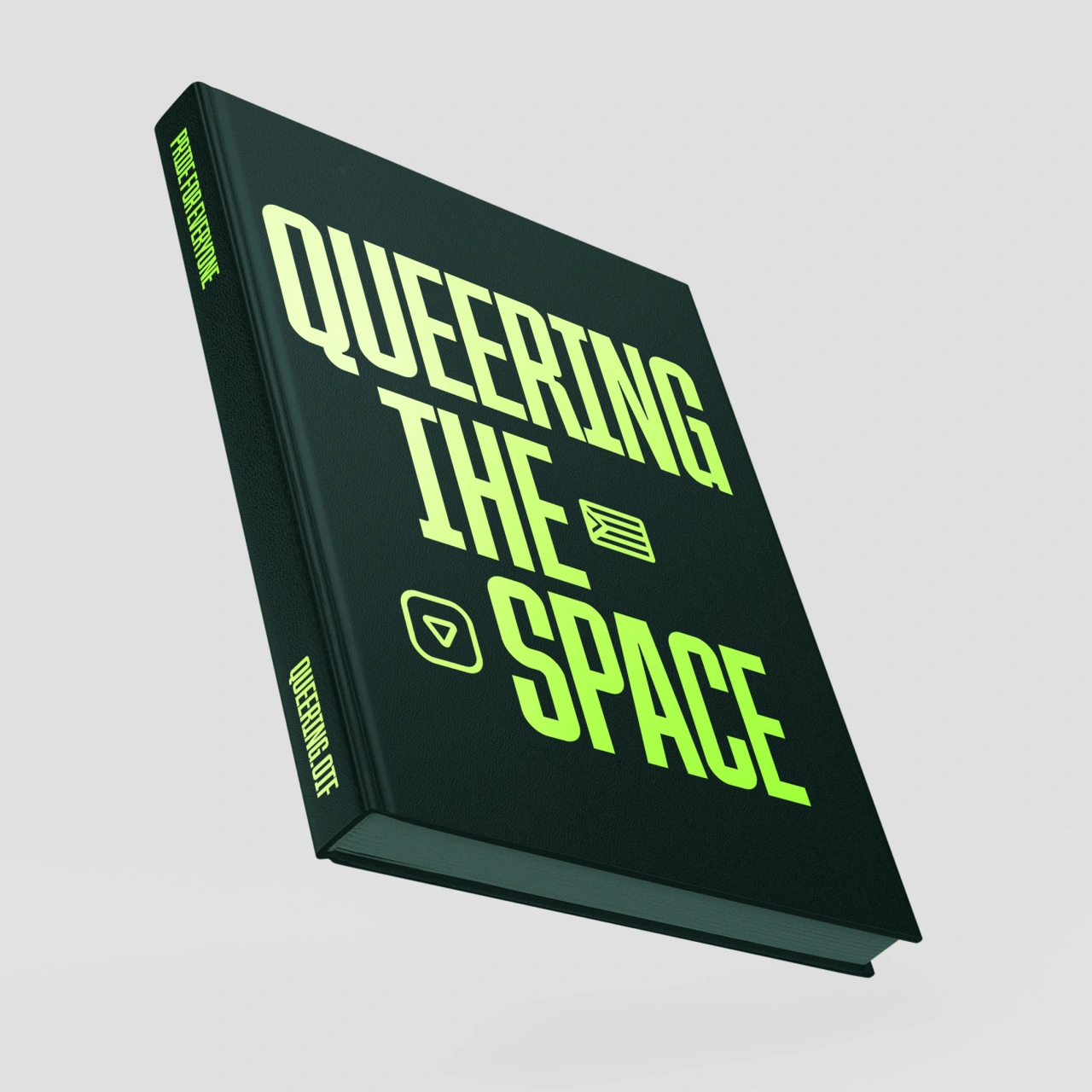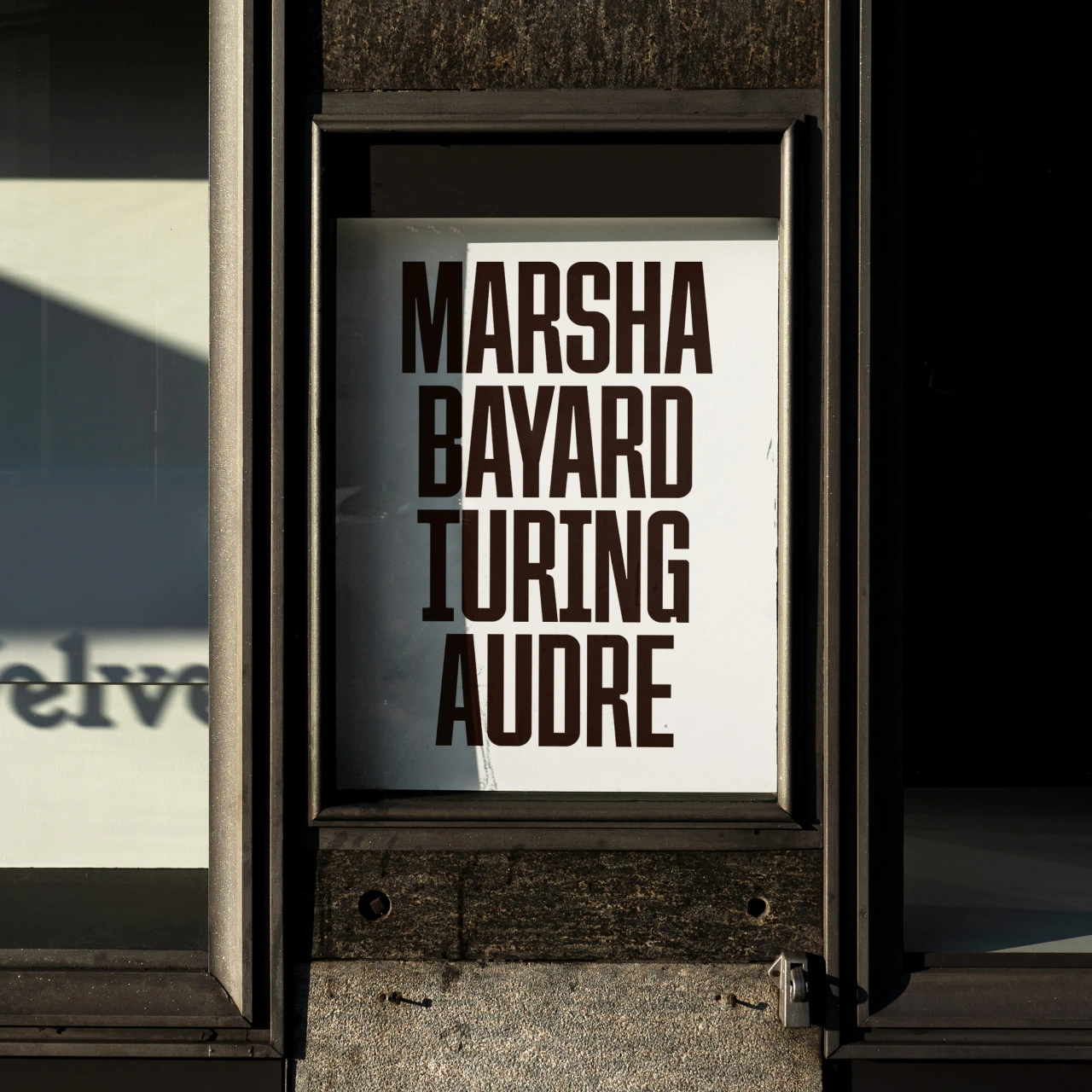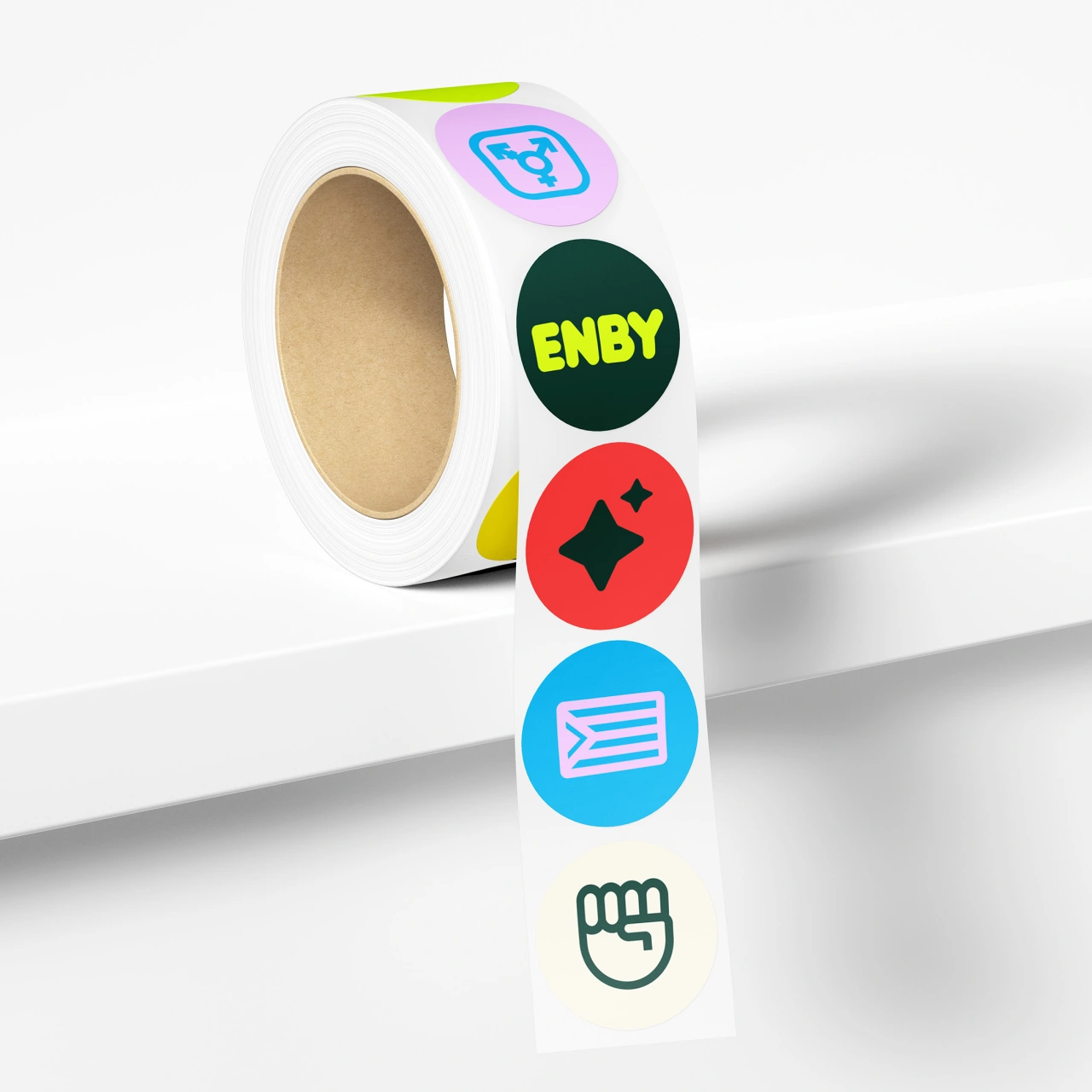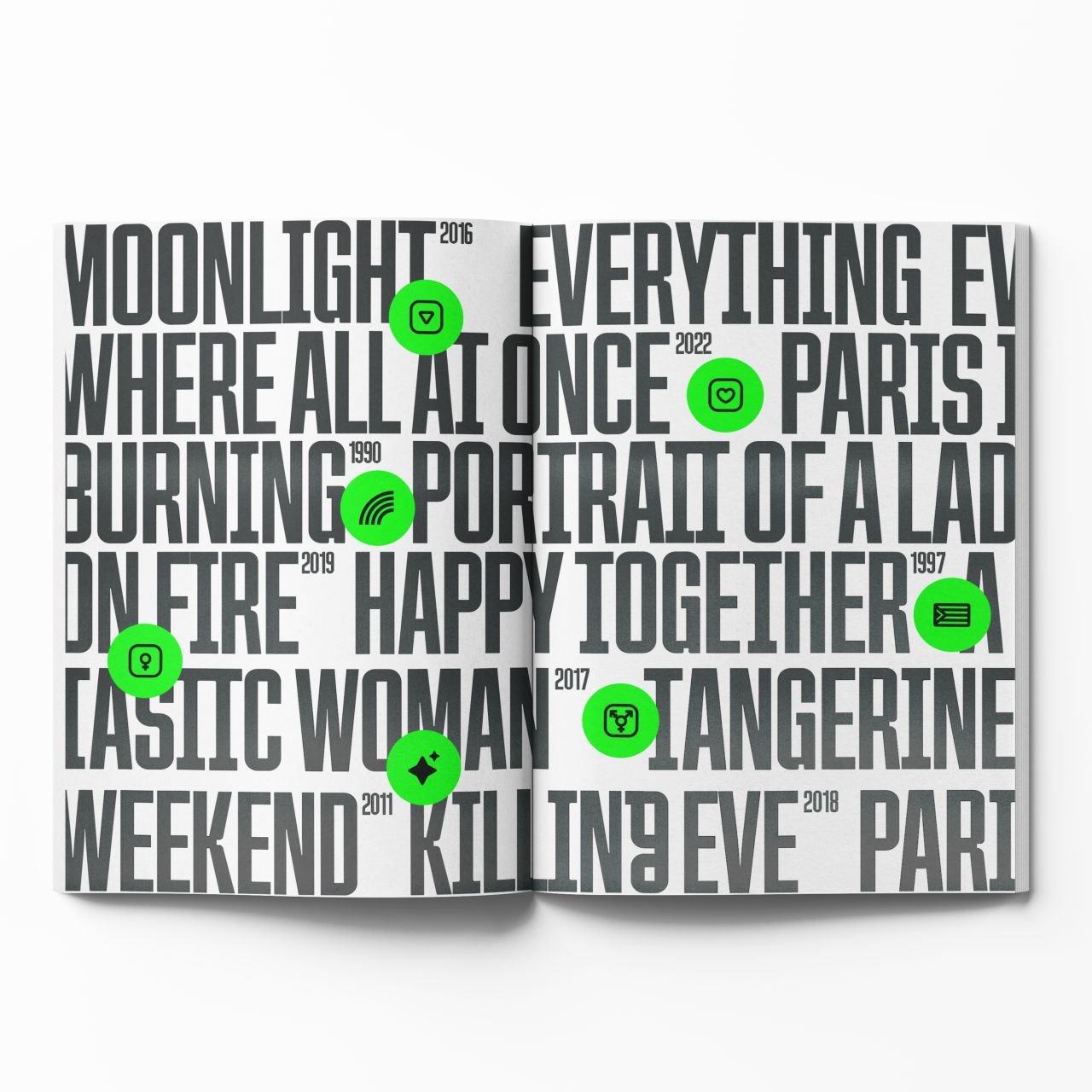
Inclusive Queering typeface draws inspiration from LGBT+ paraphernalia
Launched to coincide with Pride Month, Queering is an open-source typeface that emulates the lettering found on protest posters and queer publications. And as well as looking amazing, it's raising money for a good cause.
Created by Adam Naccarato, a New York-based senior graphic designer at Arts & Letters Co, Queering is a bold display font "built with Queerness in mind." According to Adam, this personal project features a stylistic "sans-sometimes-slab-sometimes-whatever" type font build. In other words, it's super flexible, which is appropriate.
Designed to be inclusive and open source, Queering also comes with a set of Unicode emojis made up of the Pride Flag, a rainbow, and a broad spectrum of gender symbols, to name but a few. On top of that, queer-themed iconography is available in the shape of glyphs, which users can add in-line.
Representing something of a digital evolution of queer-related typography, Queering takes its cues from the lettering found on protest posters and queer publications such as Butt and Come Out. Adam adds that a lot of inspiration and credit "goes to the wonderful readings of Paul Souleliis and the many others researching queer-focused design and typography."
"The name, Queering, comes from the activity of 'Queering a Space' – transgressing what is seen as fixed categories – such as gender and sexuality," Adam adds on the Queering project page. "Queering is intended to be an open-source font with inclusivity in mind."
As if Queering didn't sound good enough already, it's also free to download, so there's nothing to stop you from showing your true colours or showing your support as an ally.